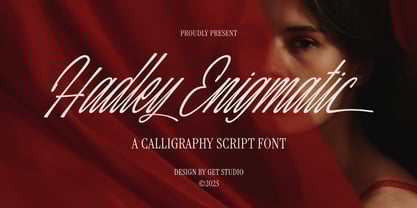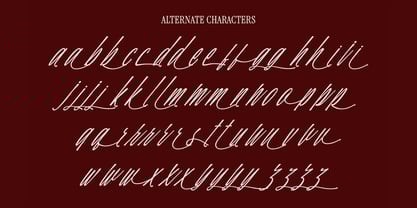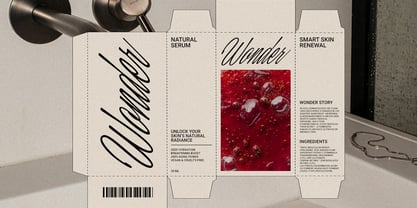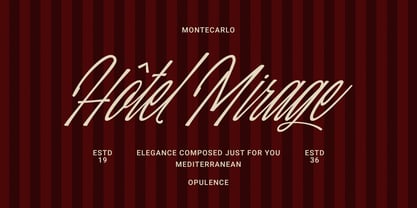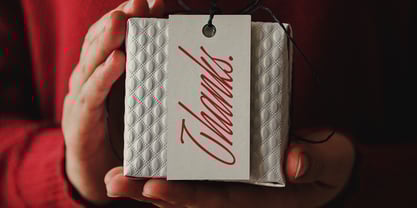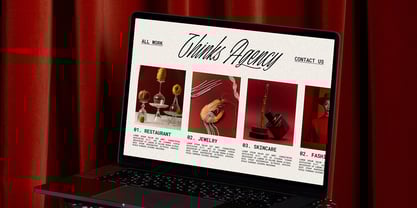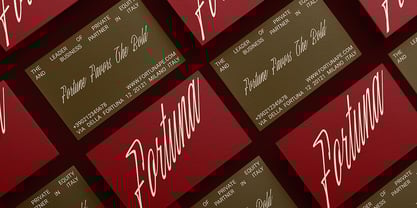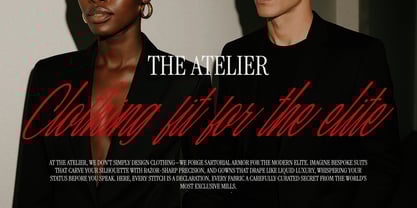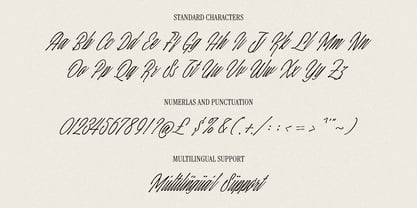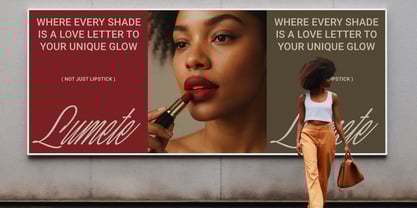
Hadley Enigmatic
by Get Studio
The Hadley Enigmatic Font Family was designed by Hermansyah and published by Get Studio. Hadley Enigmatic contains 1 styles. More about this family
Say hello to Hadley Enigmatic, a casually elegant script font with a sleek, condensed form and tight letter spacing. Its handwritten charm and subtle sophistication make it a great choice for modern branding, fashion quotes, packaging, invitations, and anything that needs a stylish personal touch.
Refined yet relaxed — Hadley Enigmatic brings effortless character to your designs.